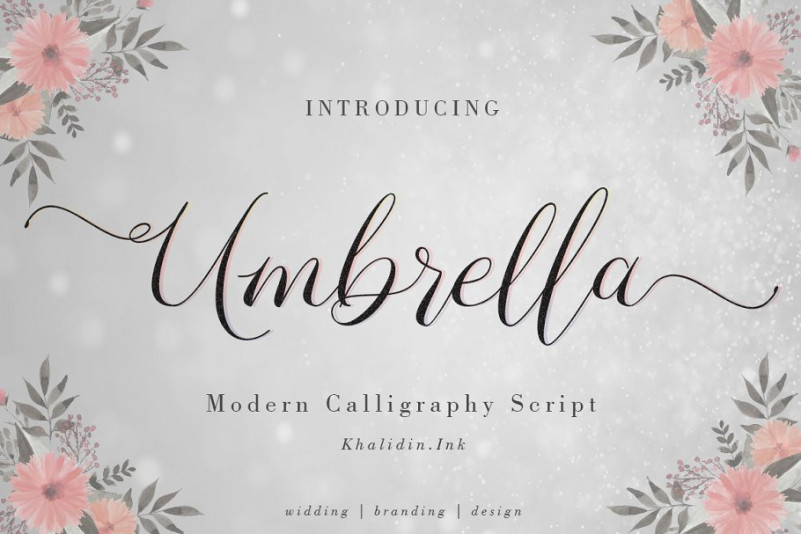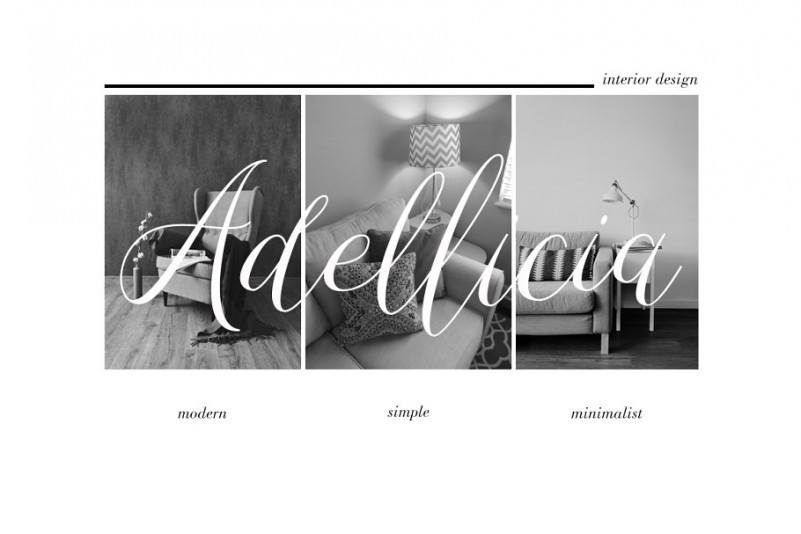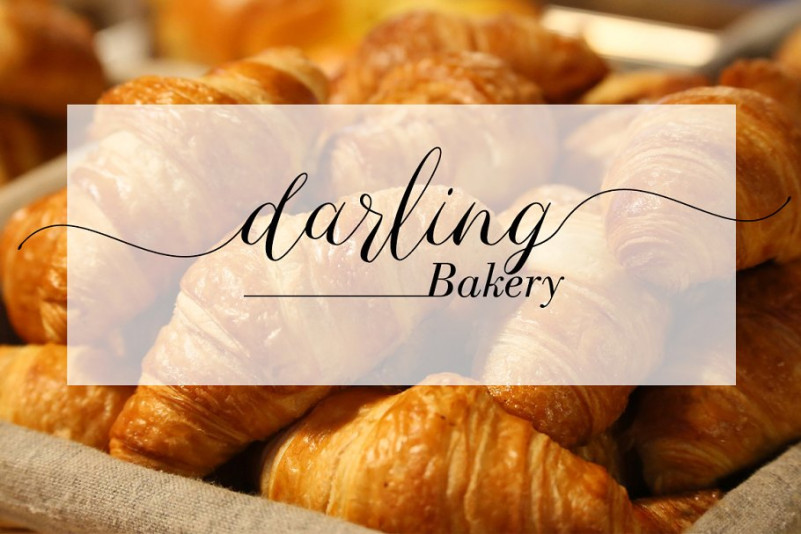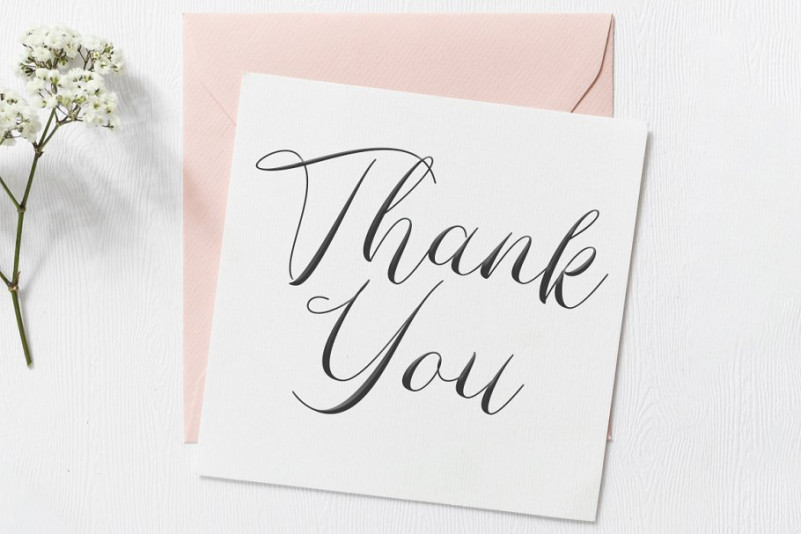
Umbrella Script Font
Hello world! This is a new fresh handmade calligraphy font. It is perfect for branding, wedding invitations and invitation cards and many more. Introducing Umbrella Font. It is was designed by Khalidin.Ink. This font is a modern script typeface. It has a striking, yet elegant look which can be used to make your design stand out. It can be used for logos, wedding invitations, titles, signatures, t-shirts, letterheads, signboards, labels, posters and much more!